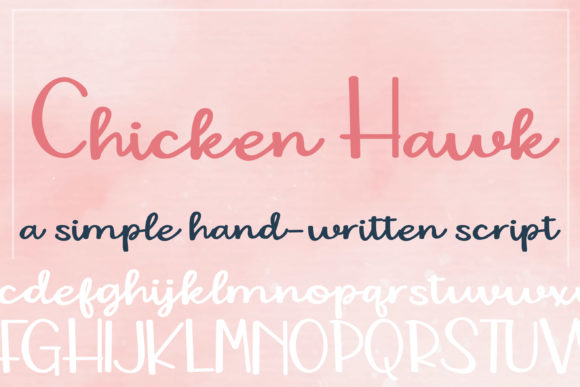
Introducing ZP Chicken Hawk, the exquisite script font that will add an instant touch of charm and elegance to your creative projects. Whether you're crafting packaging products, designing invitation cards, creating eye-catching flyers, or making stunning mockups, ZP Chicken Hawk is the perfect font to bring your vision to life.
With its meticulously crafted characters and beautiful balance, ZP Chicken Hawk exudes a timeless appeal that will capture the attention of your audience. This font is not just a collection of letters; it's an expression of artistry, a portal to a world of creativity.
Immerse yourself in the world of ZP Chicken Hawk and discover a font that's as versatile as it is captivating. Its organic curves and flowing lines add a personal touch to your designs, evoking a sense of authenticity and connection.
ZP Chicken Hawk is more than just a font; it's an experience. It's an invitation to let your creativity soar, to explore new possibilities, and to create designs that truly resonate with your audience.
Say goodbye to ordinary fonts and embrace the extraordinary with ZP Chicken Hawk. Let your designs take flight and leave a lasting impression that will be remembered long after the final page is turned.